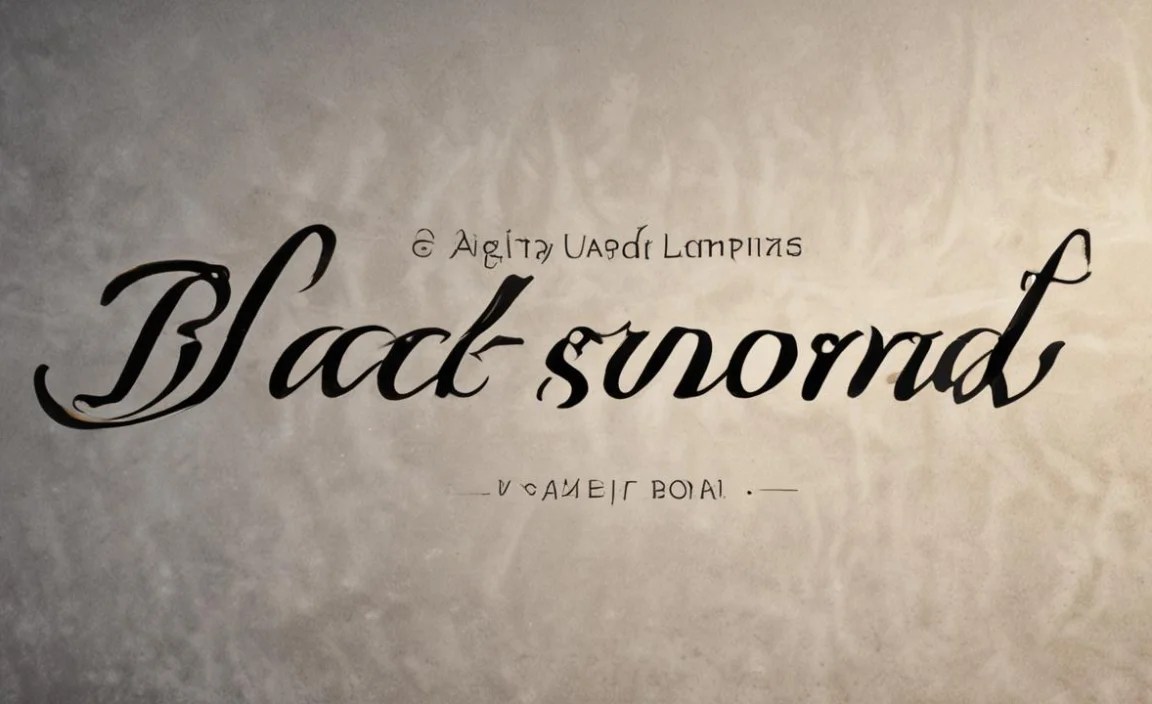
Blacksword Font, designed by Youssef Habchi, is a beautiful calligraphy font that blends the charm of handwritten fonts with the elegance of script fonts. Known for its flowing strokes and decorative elements, it is widely used for branding, logos, greeting cards, and website templates. This versatile font adds a touch of sophistication to any design project.
Blacksword Font Family
Blacksword Font offers multiple styles to suit different design needs:
- Blacksword Regular – A balanced calligraphy script with smooth curves.
- Blacksword Italic – A slanted version that adds a more dynamic feel.
- Blacksword Light Italic – A softer, more refined script.
Key Features & Usage
Blacksword Font is highly versatile and can be used for various creative applications. Below are some common uses:
- Logos & Branding – Gives businesses a stylish and professional touch.
- Greeting Cards & Invitations – Perfect for special occasions.
- Headlines & Posters – Creates an eye-catching main content.
- Product Labels & Templates – Enhances product packaging and promotional materials.
- Website Titles & Banners – Adds elegance to online platforms.
Blacksword Font Overview
| Designer | Youssef Habchi |
| Category | Calligraphy, Script |
| Supported Characters | Uppercase, lowercase, numbers, special characters |
Blacksword Font is a fantastic choice for designers looking for a sophisticated calligraphy font. Whether you need a stylish font for a branding project, greeting card, or website, this modern typeface is a great option. Its decorative appeal and versatility make it a favourite among creative professionals.
1. What Is The Blacksword Font?
Blacksword Font is a modern calligraphy typeface designed by Youssef Habchi, perfect for stylish branding and decorative text.
6. Does Blacksword Font Include Special Characters?
Yes, it includes uppercase and lowercase letters, numbers, and special characters.
7. What Are The Best Design Projects For This Font?
It is ideal for posters, greeting cards, product labels, and website banners.